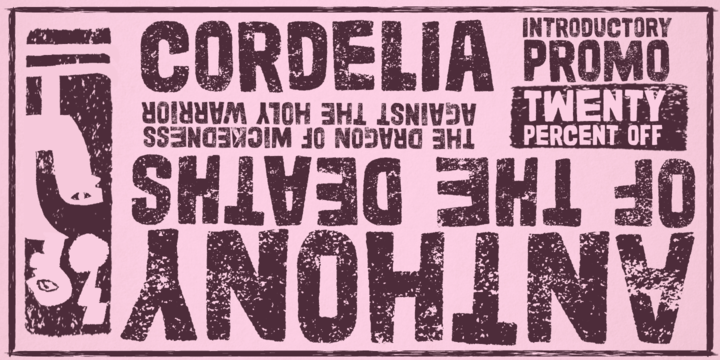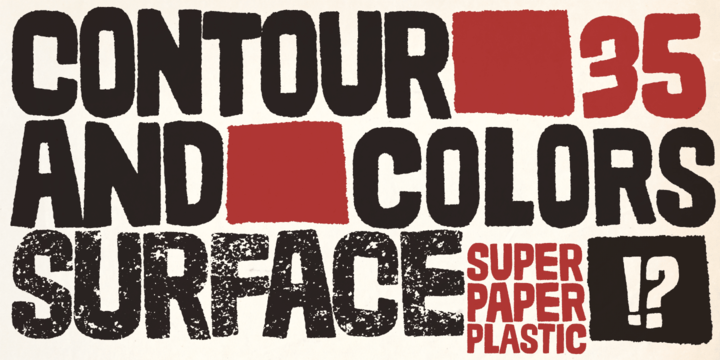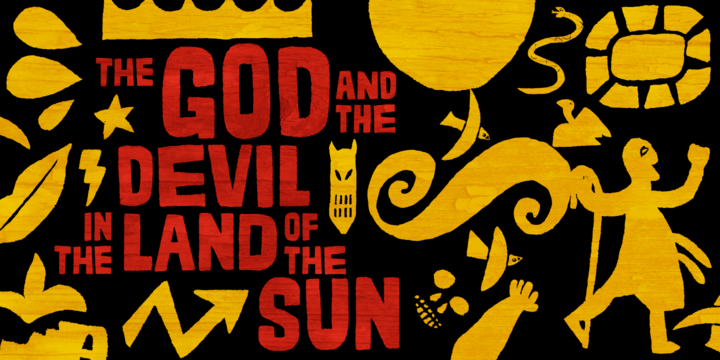
Cordelia Font Family
Impacting and vibrant, Cordelia family draws inspiration from covers of ‘cordel literature’, small booklets of popular story-poems that played an essential role on the folk-popular cultural life of Brazil.
Printed in coarse paper, usually with an woodcut illustration and lettering in the front, these booklets were sold on the streets, in marketplaces and town squares, hung in a cord – therefore the name ‘cordel’.